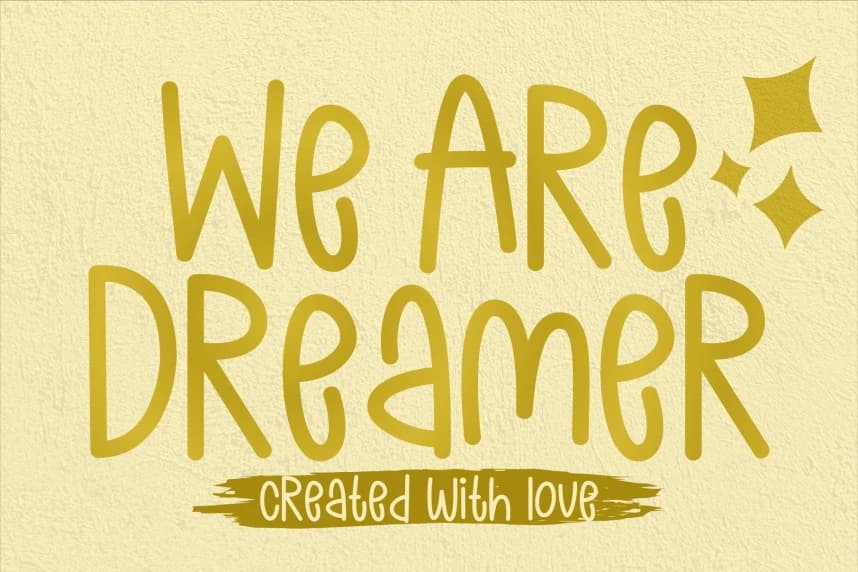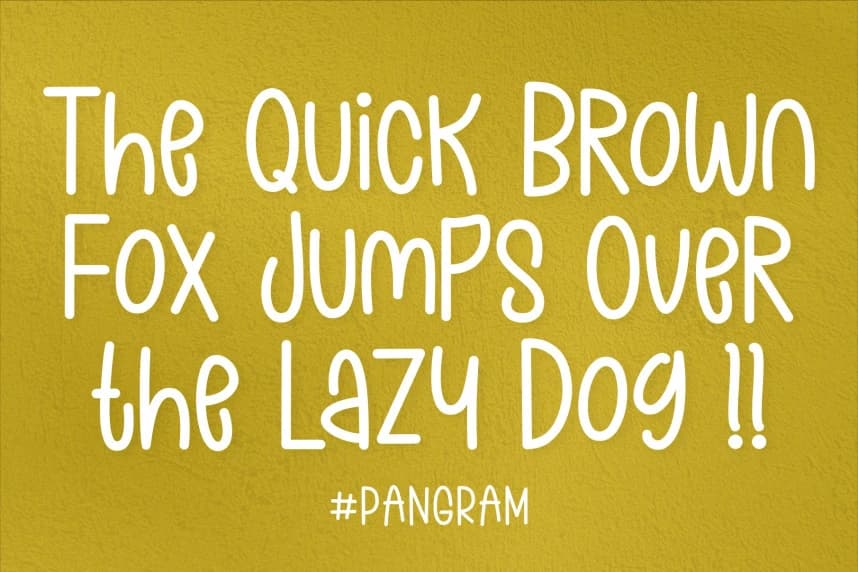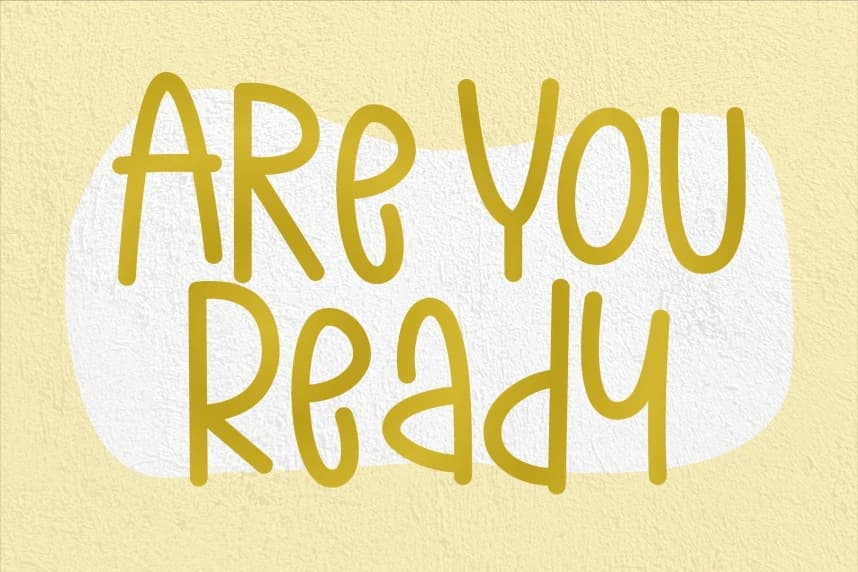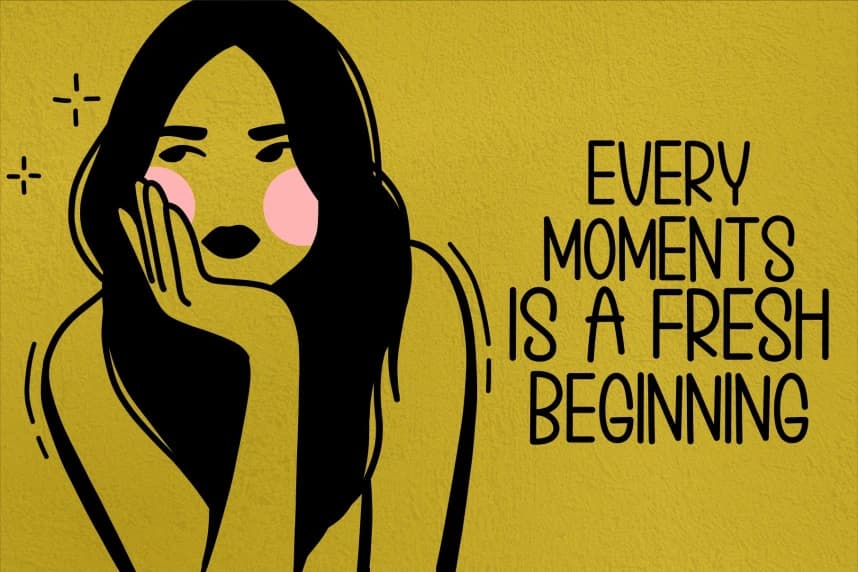
We Are Dreamer Font
We Are Dreamer Font is a cute handwritten font perfect for posters, logos, magazines, book covers, banners, and many more! Get this amazing font, and use it to create lovely designs. It can easily be matched to an incredibly large set of projects